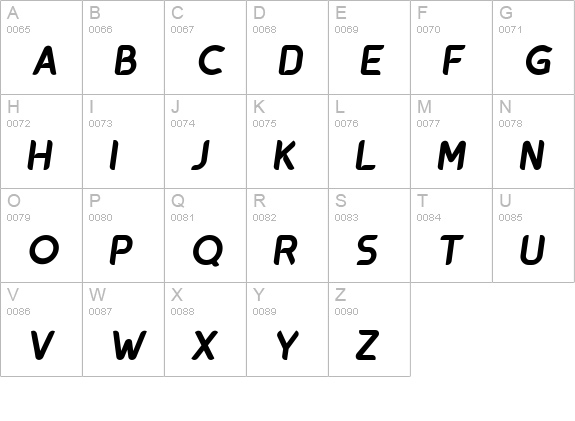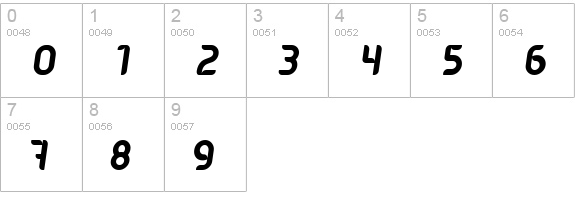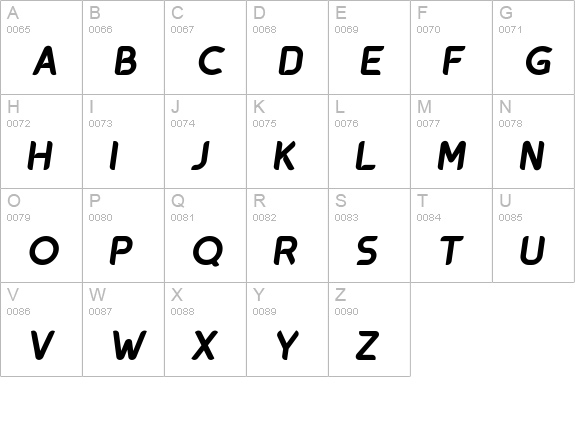
oxo-BoldItalic Font Details
Introducing the exquisite oxo-BoldItalic font, a stunning display of elegance and sophistication. This unique typeface effortlessly combines boldness with a touch of italic flair, creating a striking visual impact. Designed with meticulous attention to detail, the oxo-BoldItalic font exudes a sense of modernity and style. Its sleek lines and smooth curves make it ideal for a wide range of design projects, from branding to packaging, invitations to posters. And the best part? This exceptional font is available for free download at FontsMarket.com. Don't miss out on the opportunity to add this versatile and eye-catching typeface to your collection. Download oxo-BoldItalic today and elevate your designs to new heights of creativity and professionalism.